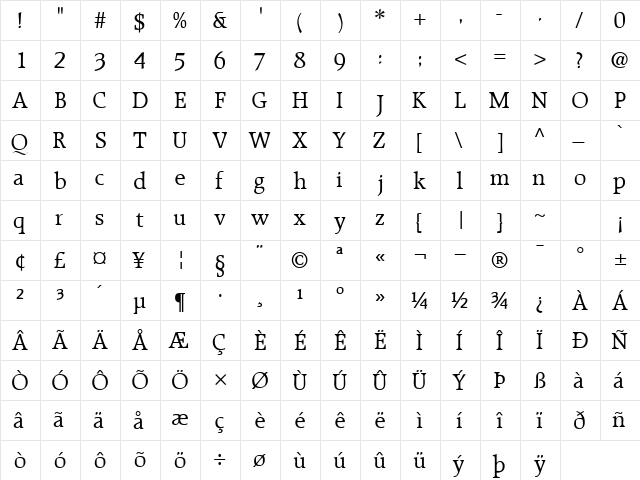
RecognitaSSK Regular
Design Context for RecognitaSSK Typeface
RecognitaSSK offers clean, dependable letterforms without strong stylistic allegiance, making it a practical choice for designers who need flexibility.